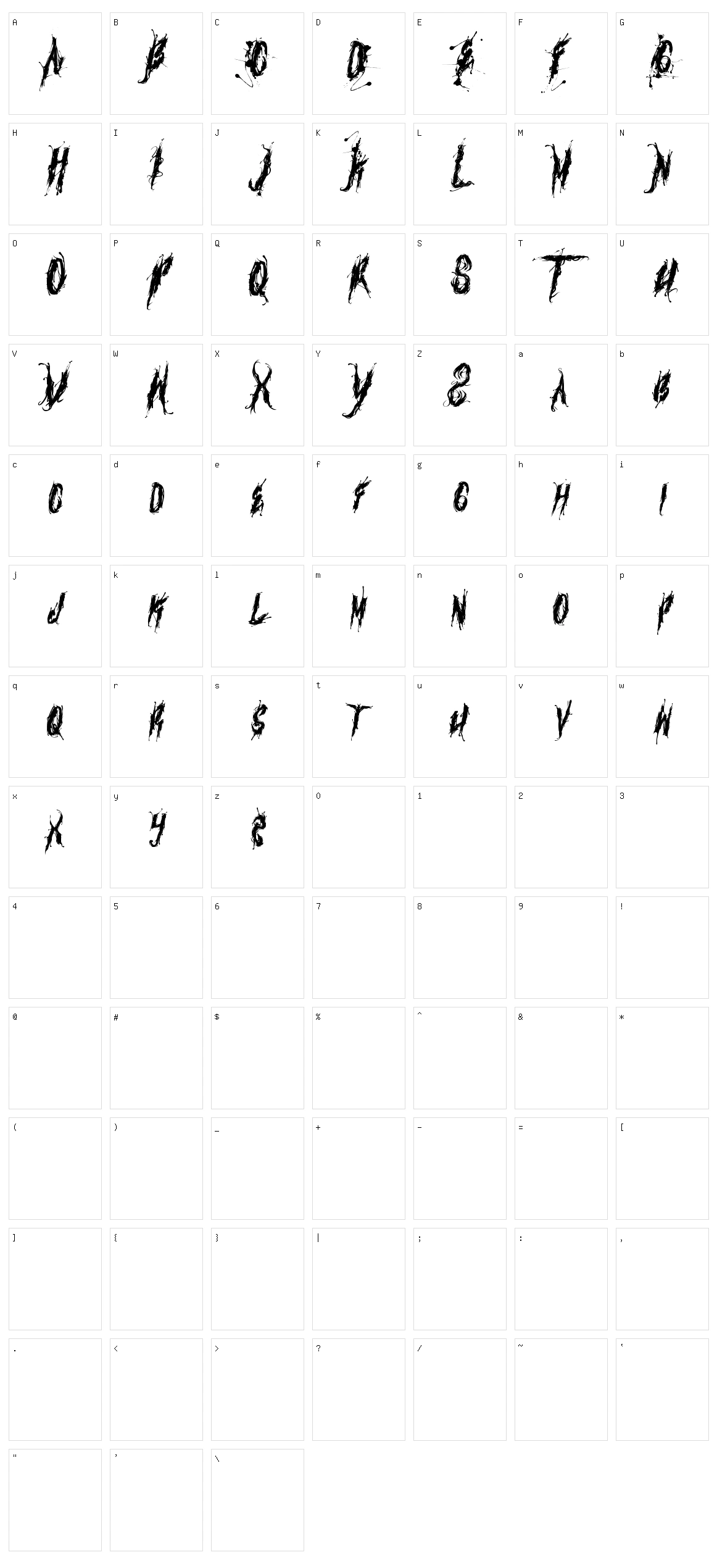
The free font Venom is carefully designed by fluffyartstudio, showcasing a thoughtful balance of creativity and usability and falls under the Horror font style. When you download the ZIP file, it contains only 99.88 KB of font files, making it lightweight and quick to download. Please review the license details below to understand permitted usage and distribution rights. If license information is not available, we recommend using this font for personal projects only or contacting the author directly for commercial usage permissions.